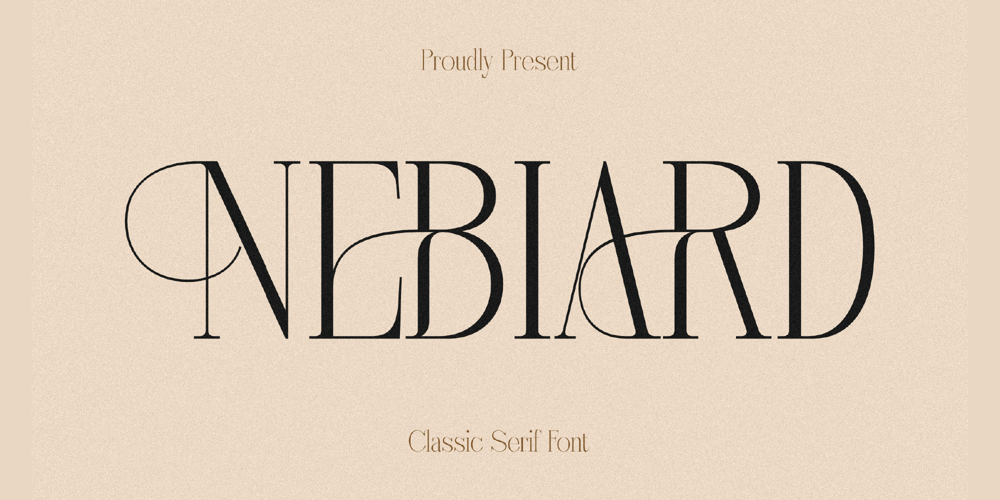
Nebiard Font Family was designed by Heru Utama Putra and published by Letterena Studios. Nebiard contains 2 styles and family package options. Proudly present Nebiard Typeface , created by Storytype,A serif modern and classic typeface that has own unique style & modern look.This typeface is perfect for an elegant & luxury logo, book or movie title design, fashion brand, magazine, clothes, lettering, quotes, and so much more.